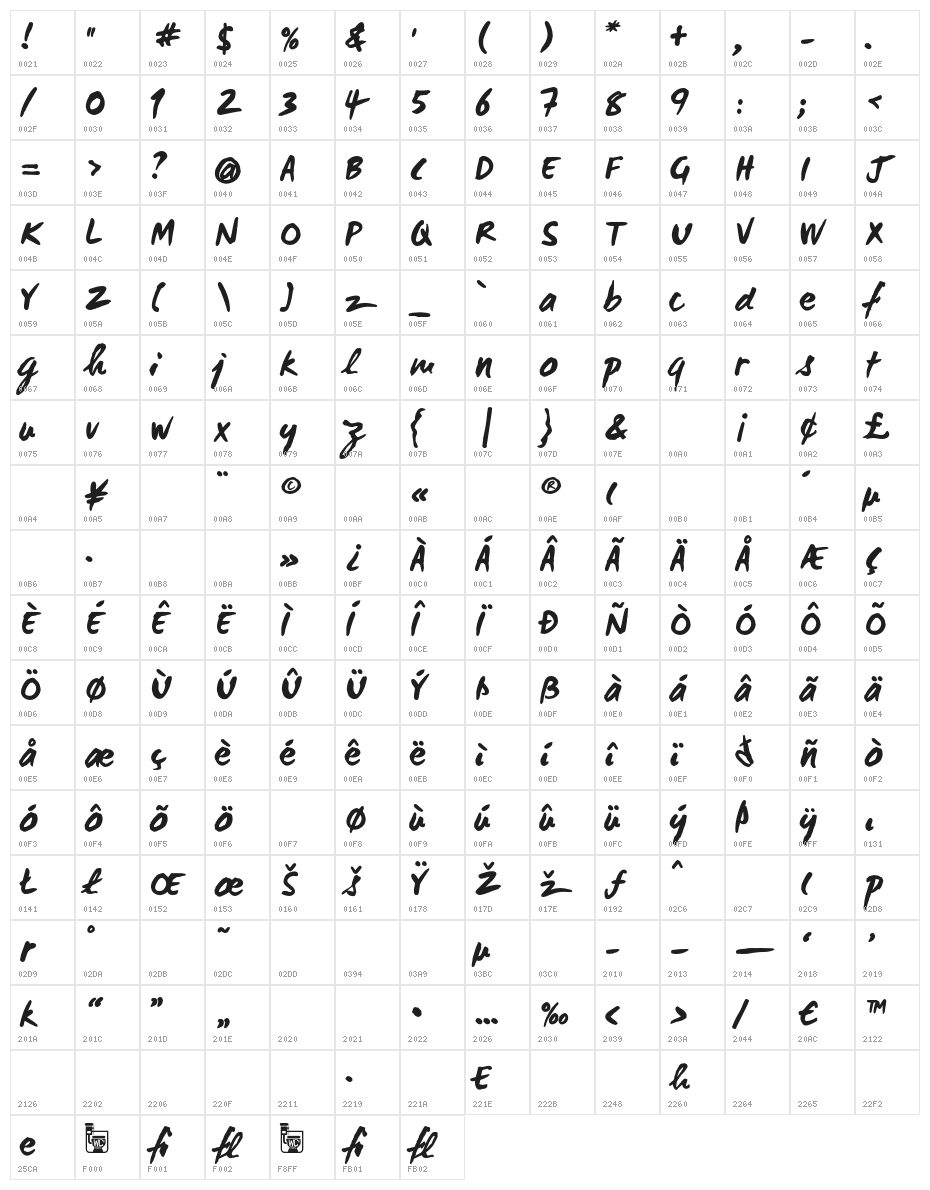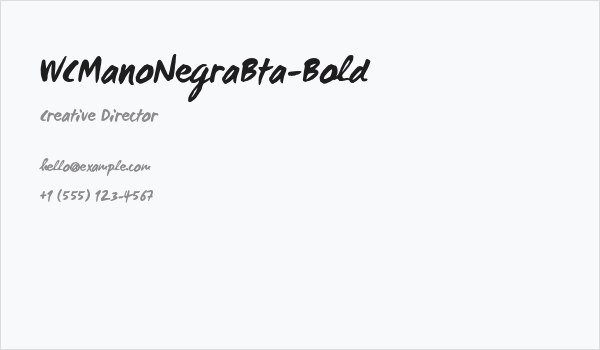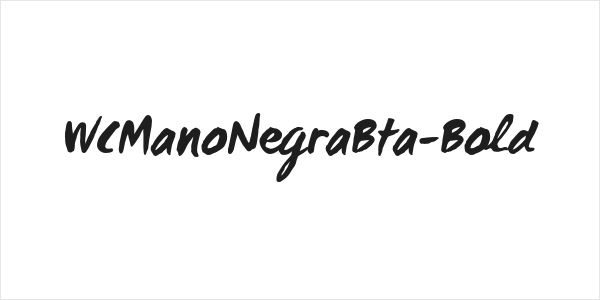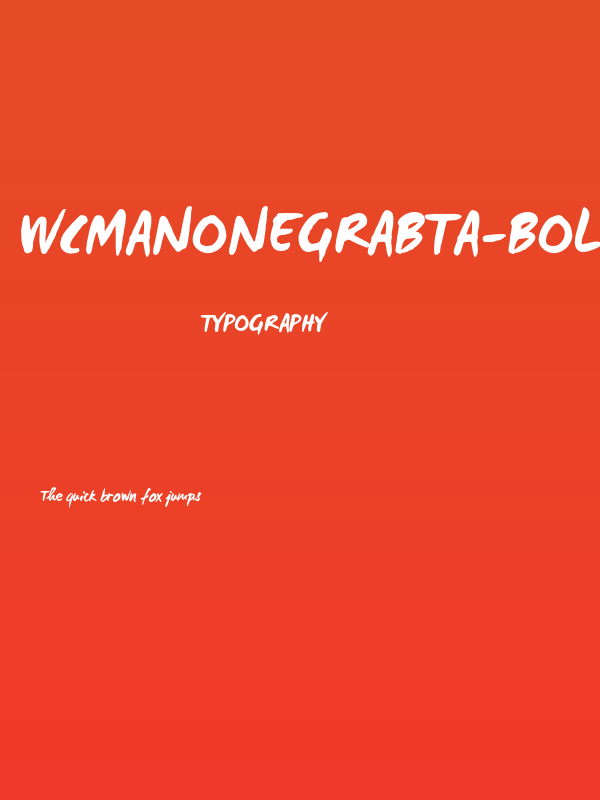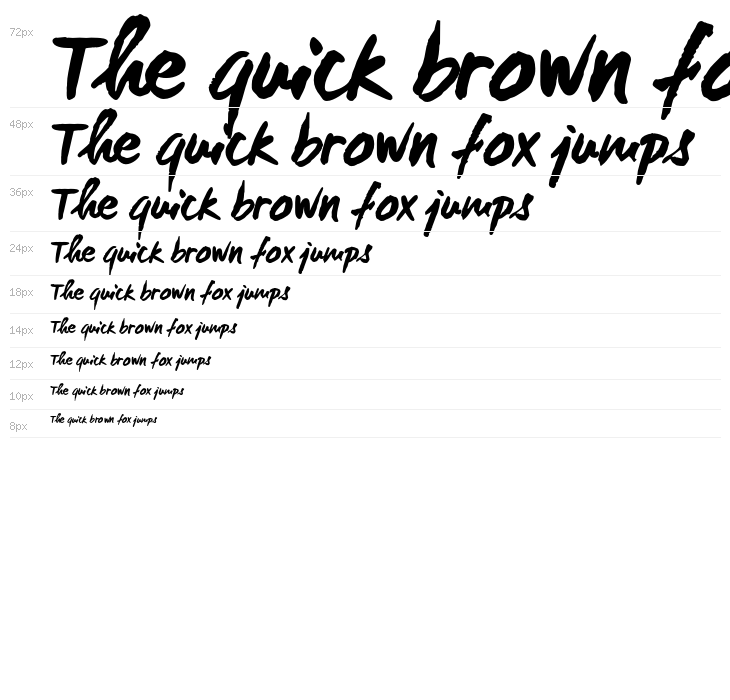
WCManoNegraBta-Bold Font
WCManoNegraBta-Bold Description
This font features a bold, expressive handwritten style with a dynamic and energetic appearance. The characters are crafted with a brush-like texture, giving them a lively and informal feel. The uppercase and lowercase letters maintain a consistent flow, while the numerals and special characters complement the overall design. The strokes are thick and varied, adding a sense of movement and personality to the text. This font is ideal for projects that require a personal touch or a creative flair.
| Proposed Projects | Perfect for posters, branding, social media graphics, and creative invitations. |